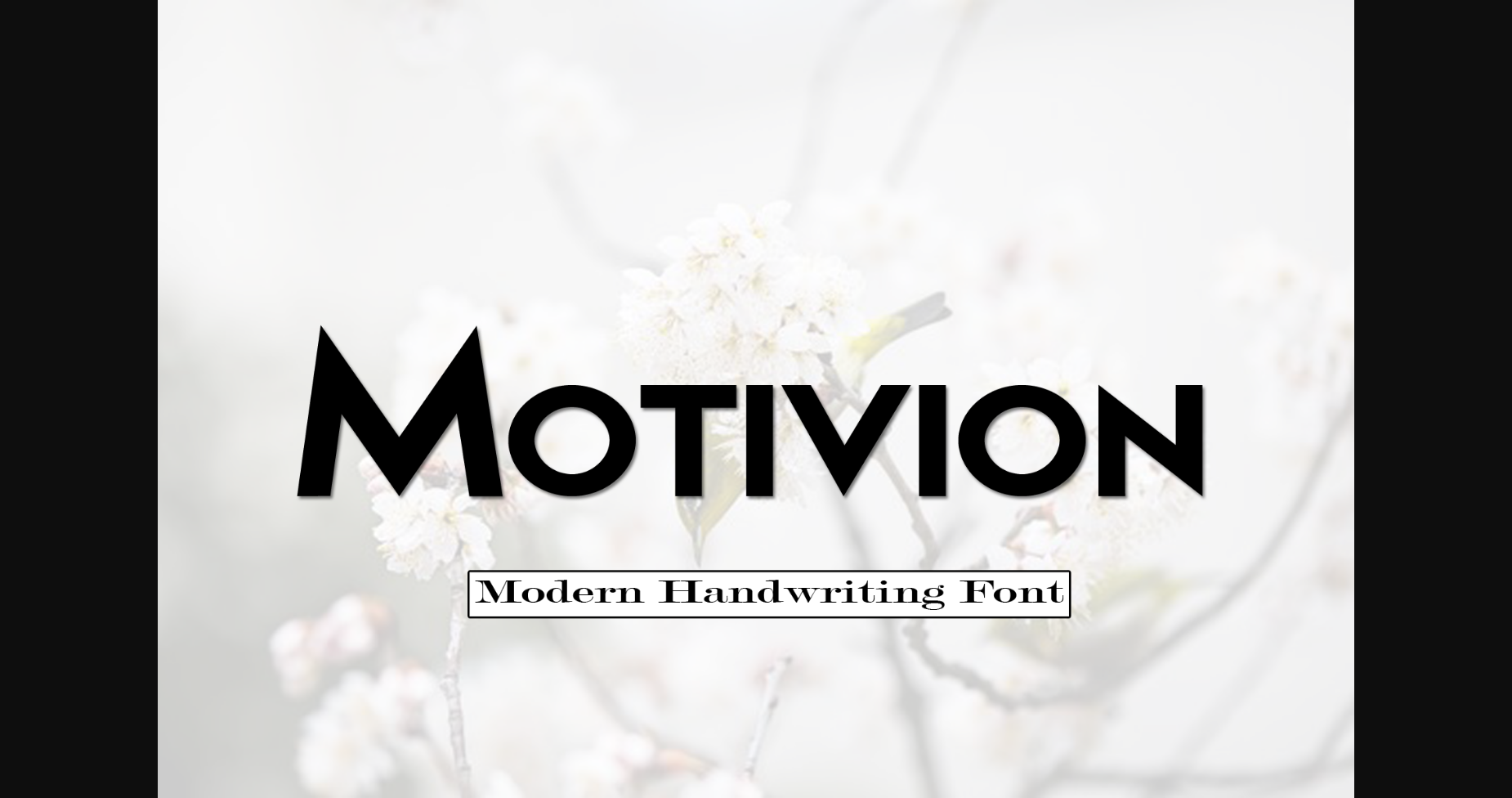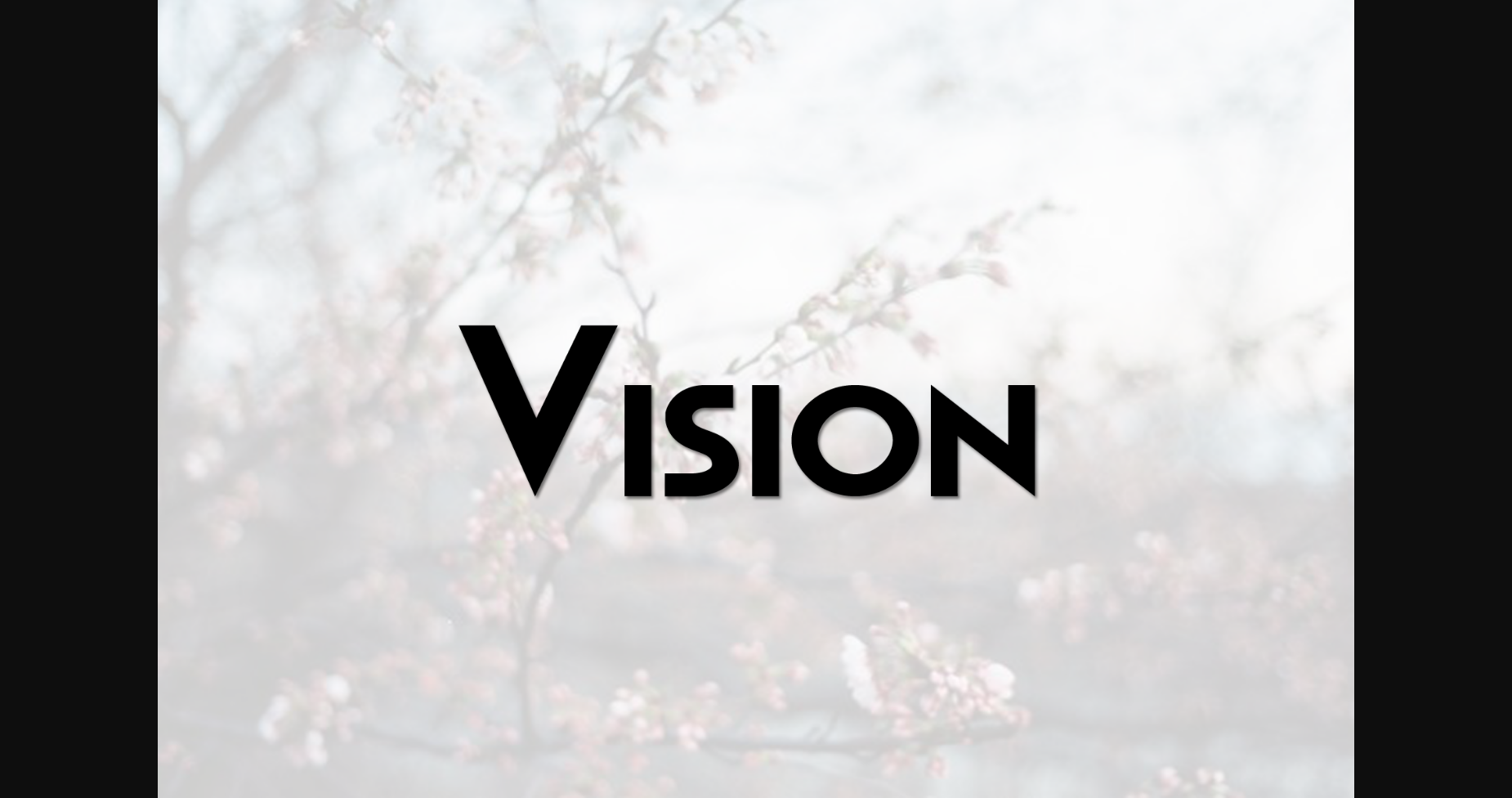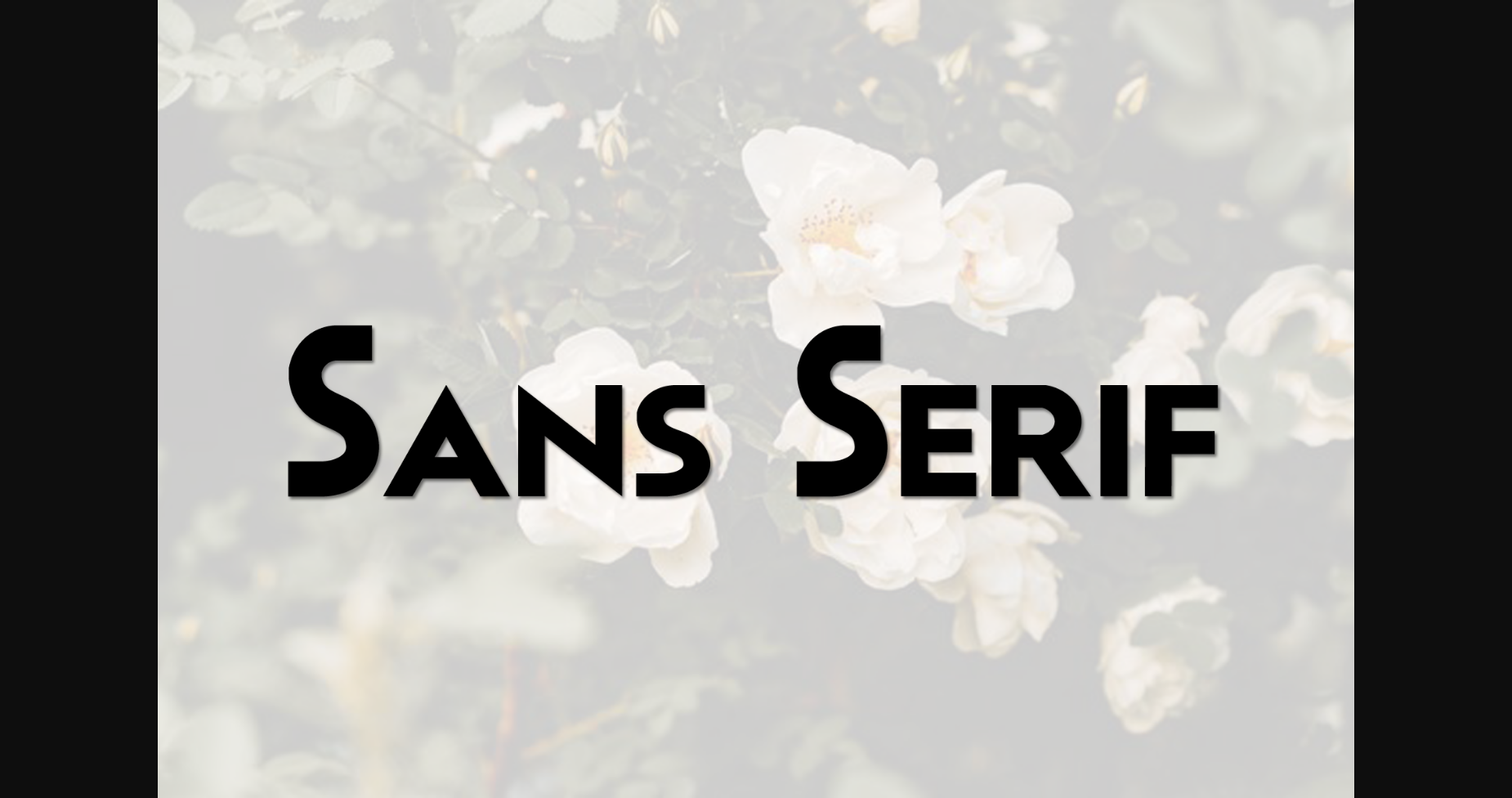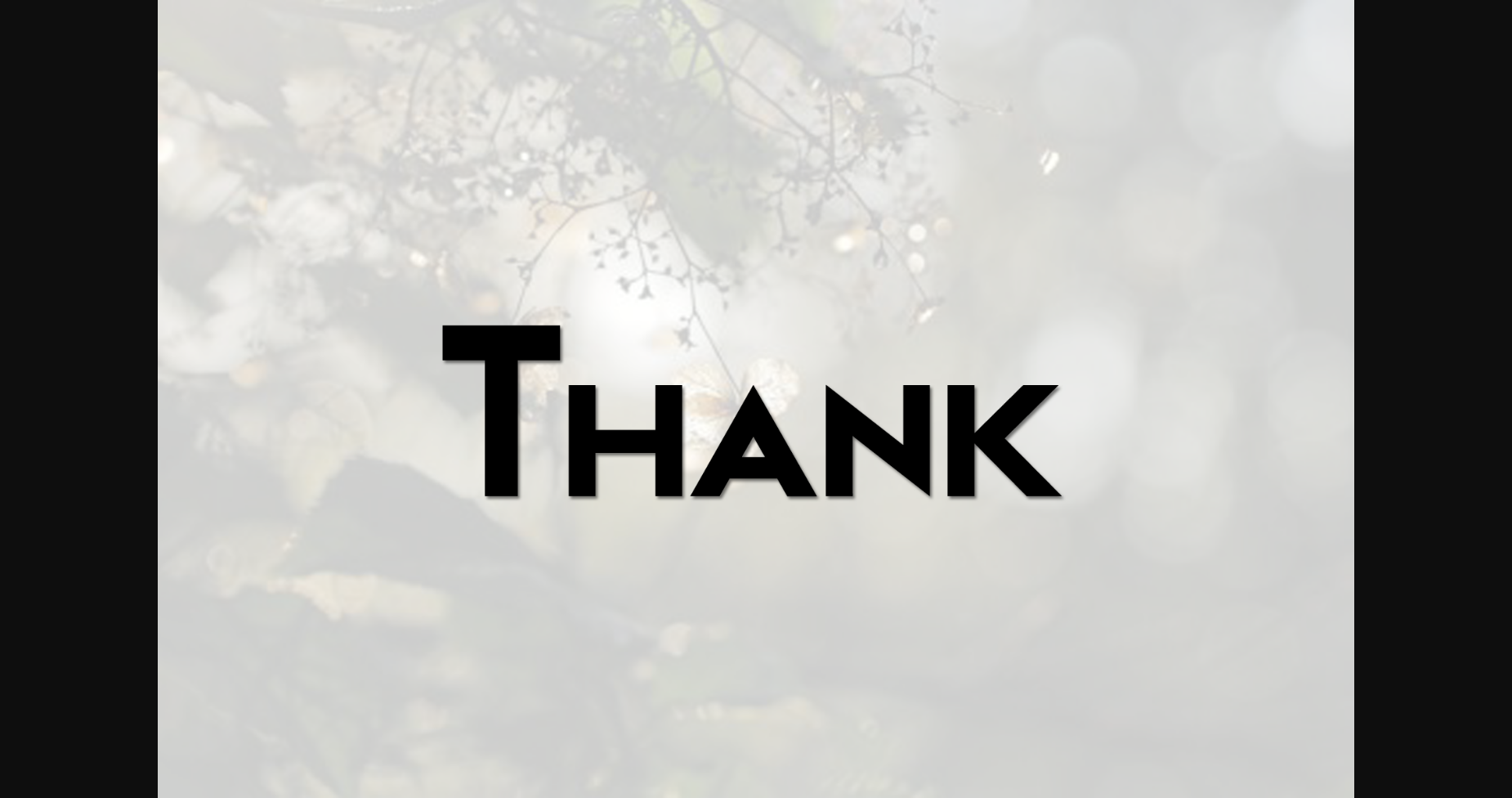
About Motivion Font
Motivion is a stylish and very elegant handwritten font. It looks amazing on wedding invitations, thank you cards, quotes, greeting cards, logos, business cards, and any other design that calls for a handwritten touch.